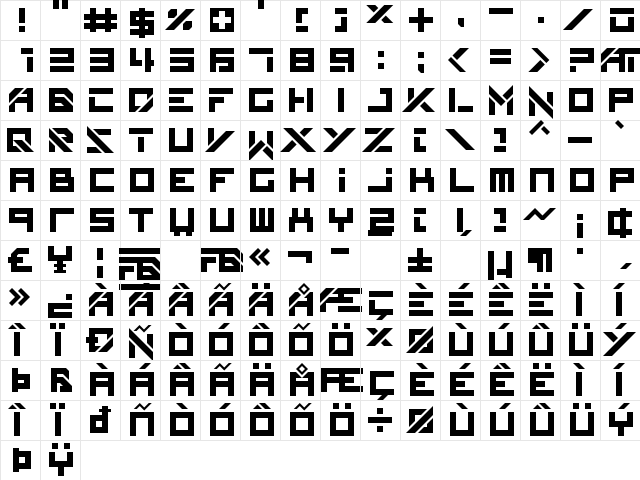
Filthy Bassline Regular
| Designer | Dan Johnston |
Design Context for Filthy Bassline Typeface
Filthy Bassline is a composed and adaptable typeface that performs quietly and consistently across a wide range of design contexts.